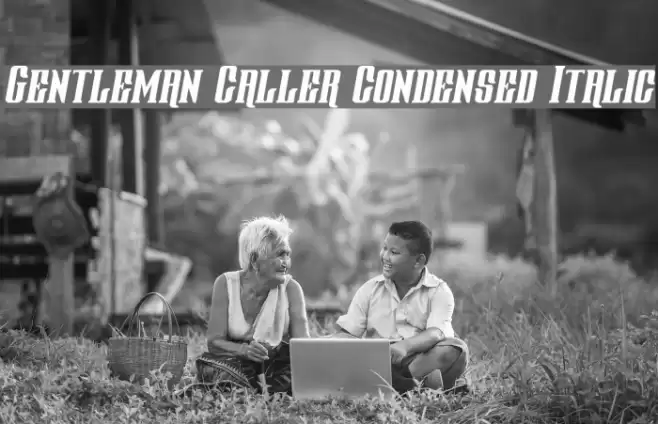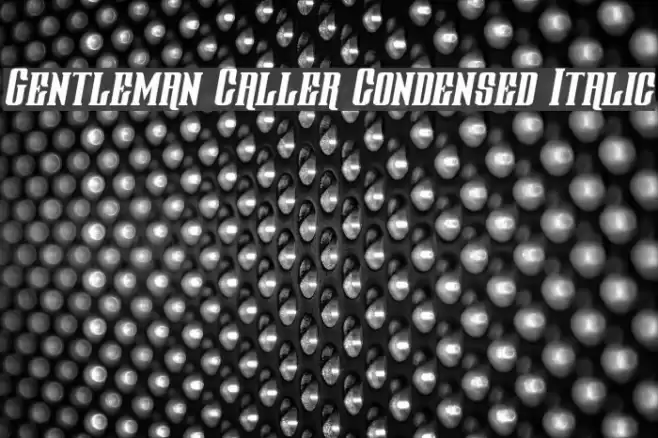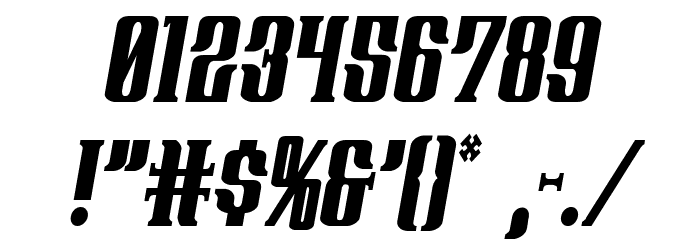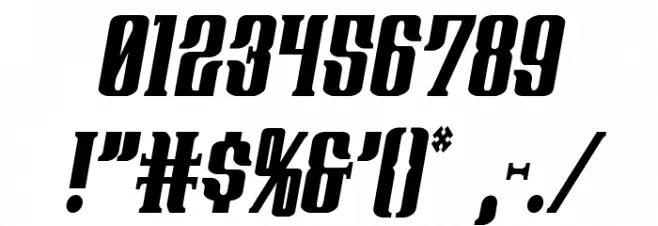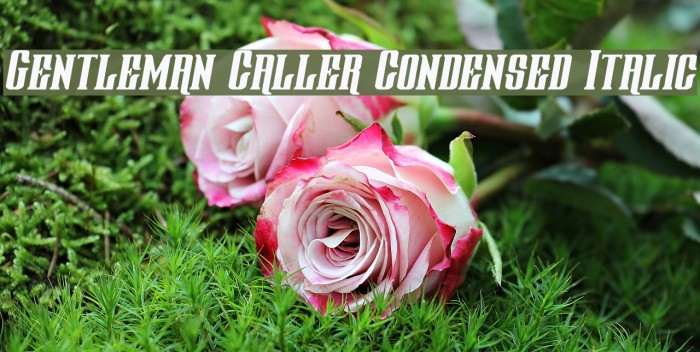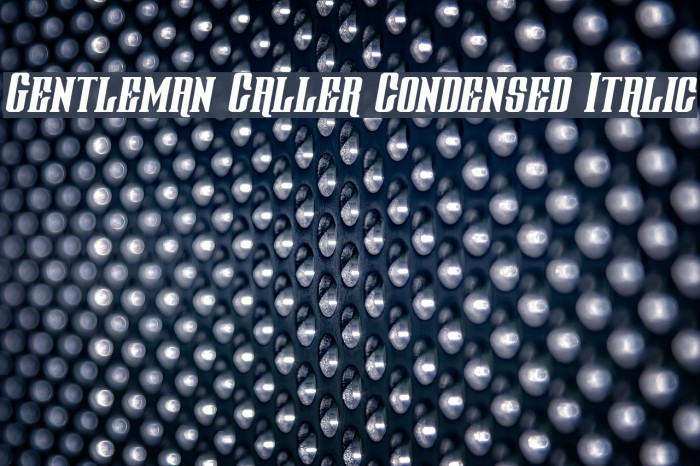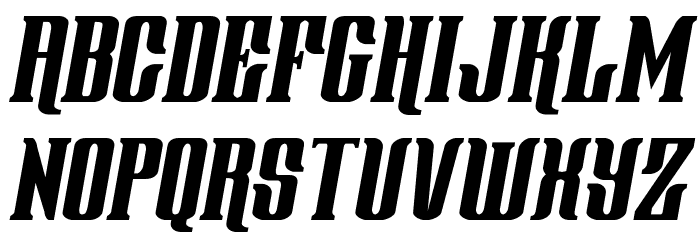
Gentleman Caller Condensed Italic Font
Gentleman Caller Condensed Italic Description
This font features a bold and condensed style with an italic slant, giving it a dynamic and energetic appearance. The characters are tightly spaced, enhancing the compact look. The strokes are thick, providing a strong visual impact, while the italic angle adds a sense of motion and elegance. The uppercase and lowercase letters maintain a consistent design, with sharp edges and a modern flair. The numerals and special characters follow the same stylistic cues, ensuring uniformity across all elements.
A bold, condensed, and italic font with a modern and dynamic style from Uncategorized fonts.
- Proposed Projects: Ideal for headlines, posters, branding, and any project requiring a bold and impactful typeface.
- Character Spacing: Tight